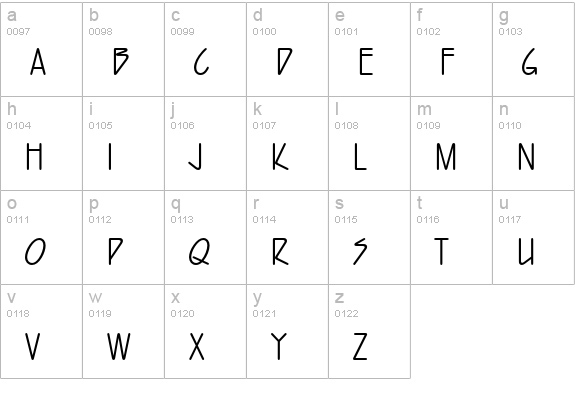
Harvey Std is a visually stunning font that effortlessly combines elegance with a touch of playfulness. Its timeless appeal makes it perfect for a wide range of design projects, from branding to editorial layouts. With its clean lines and balanced letterforms, Harvey Std brings a sense of sophistication to any text. The carefully crafted curves and impeccable spacing give this font a professional and polished look. Whether used in headlines, body copy, or even logos, Harvey Std never fails to make a bold statement. But what truly sets Harvey Std apart is the fact that it is free. Yes, you read that right. This magnificent font is freely available to download at FontsMarket.com. Now, you can elevate your design projects without any cost barriers. Say goodbye to expensive font licenses and hello to endless creative possibilities. Downloading Harvey Std from FontsMarket.com is a breeze. Simply visit the website, search for Harvey Std, and with just a few clicks, this extraordinary font will be at your fingertips. Whether you're a seasoned designer or just starting out, this free font is an invaluable addition to your typographic toolkit. So, why wait? Unleash your creativity and download Harvey Std today. With its beautiful aesthetics and the fact that it's free, this font is a must-have for designers, artists, and anyone looking to make a lasting impression. Take advantage of this incredible opportunity and let Harvey Std elevate your designs to new heights.